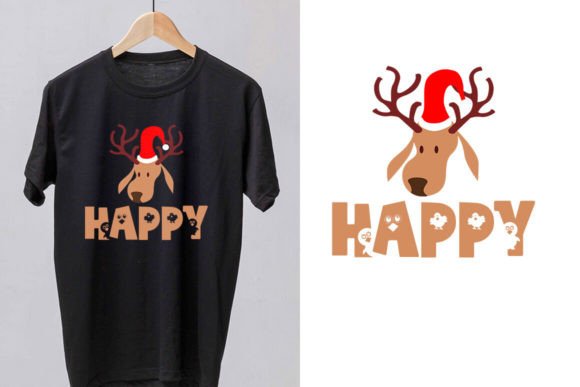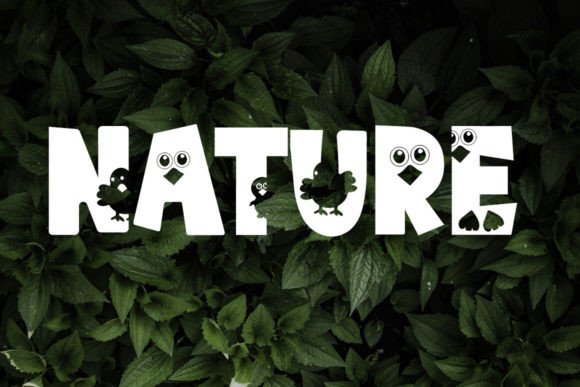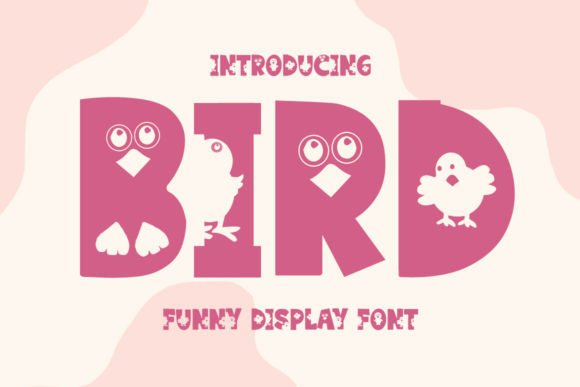
The Bird Font: A Sweet Serenade for Your Designs
I’ll never forget the time I was working on a project for a client’s wedding invitation suite. I had spent hours agonizing over the perfect layout, colors, and graphics, but something was still missing. It wasn’t until I stumbled upon the Bird Font that the entire design came together. The elegance, the whimsy, and the sophistication it brought to the table were exactly what I needed to make the project shine. If you’re a designer, crafter, or creative hobbyist looking for a font that will elevate your work, you’re in the right place.
I’ve had the pleasure of working with the Bird Font on several projects, and here’s what I think:
• ✨ Exquisite fusion of sophistication and delight: This font seamlessly blends elegance with a playful touch, making it perfect for a wide range of projects.
• ✅ Unparalleled freshness: The Bird Font brings a sense of modernity and freshness to your designs, setting it apart from more traditional fonts.
• ✅ Meticulous craftsmanship: Each stroke is carefully crafted to enhance your design experience, making it a joy to work with.
• 🤔 Limited availability of certain OpenType features: While the Bird Font supports many OpenType features, some advanced features might not be available.
• ⚠️ Occasional kerning issues: As with any font, you might encounter some kerning issues, especially when using the font at smaller sizes.
The Story Behind the Bird Font
The Bird Font was designed by a talented typographer who wanted to create a font that would capture the essence of nature and elegance. Inspired by the beauty of birds and the world around us, the designer carefully crafted each letter to bring a sense of freshness and sophistication to the table. The result is a font that is both timeless and modern, perfect for a wide range of projects.
What makes the Bird Font so special? The Bird Font’s unique blend of elegance, whimsy, and sophistication sets it apart from other fonts.
Is the Bird Font suitable for formal projects? Absolutely! The Bird Font’s elegance and sophistication make it perfect for formal projects, such as wedding invitations, business cards, and more.